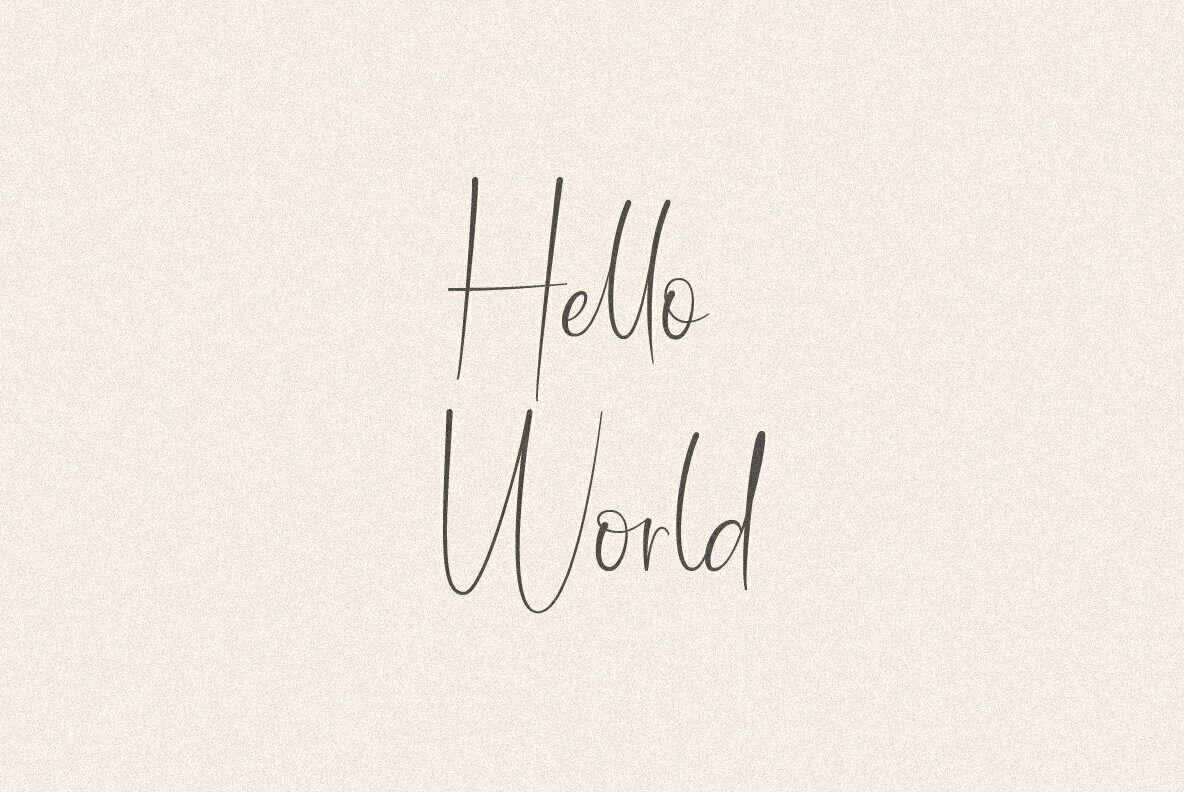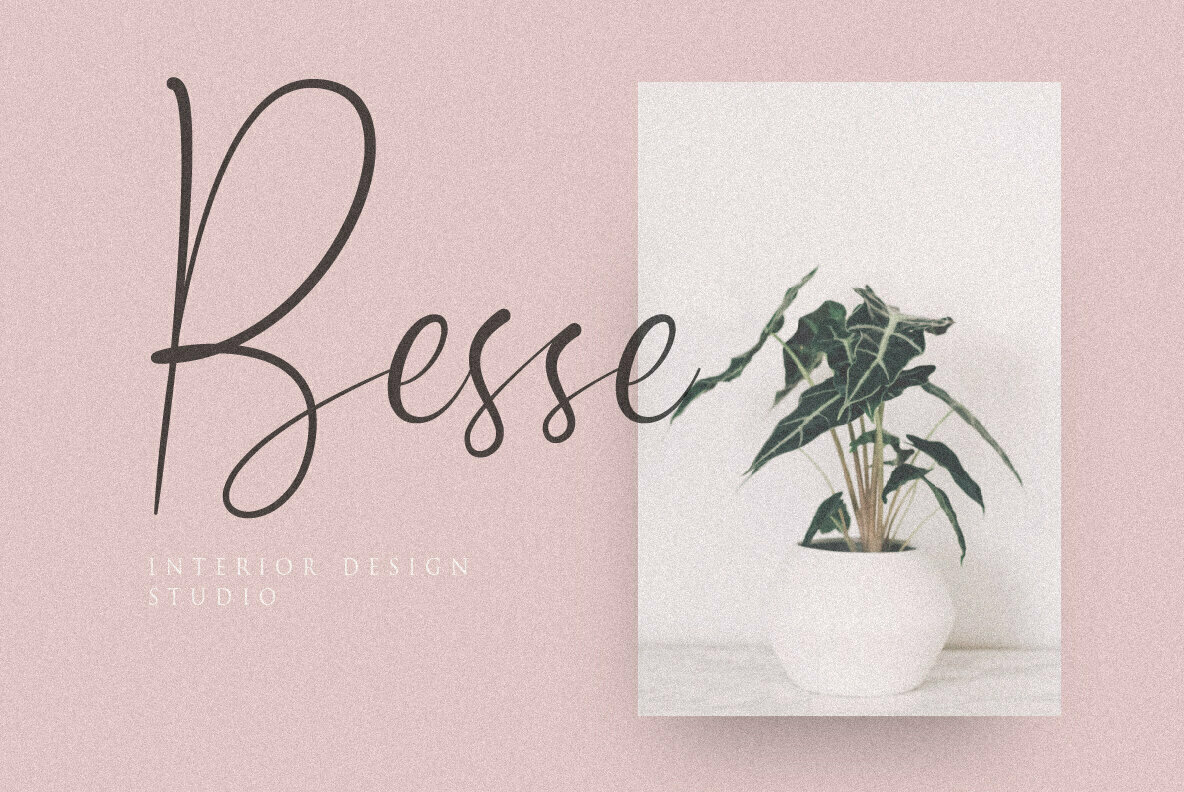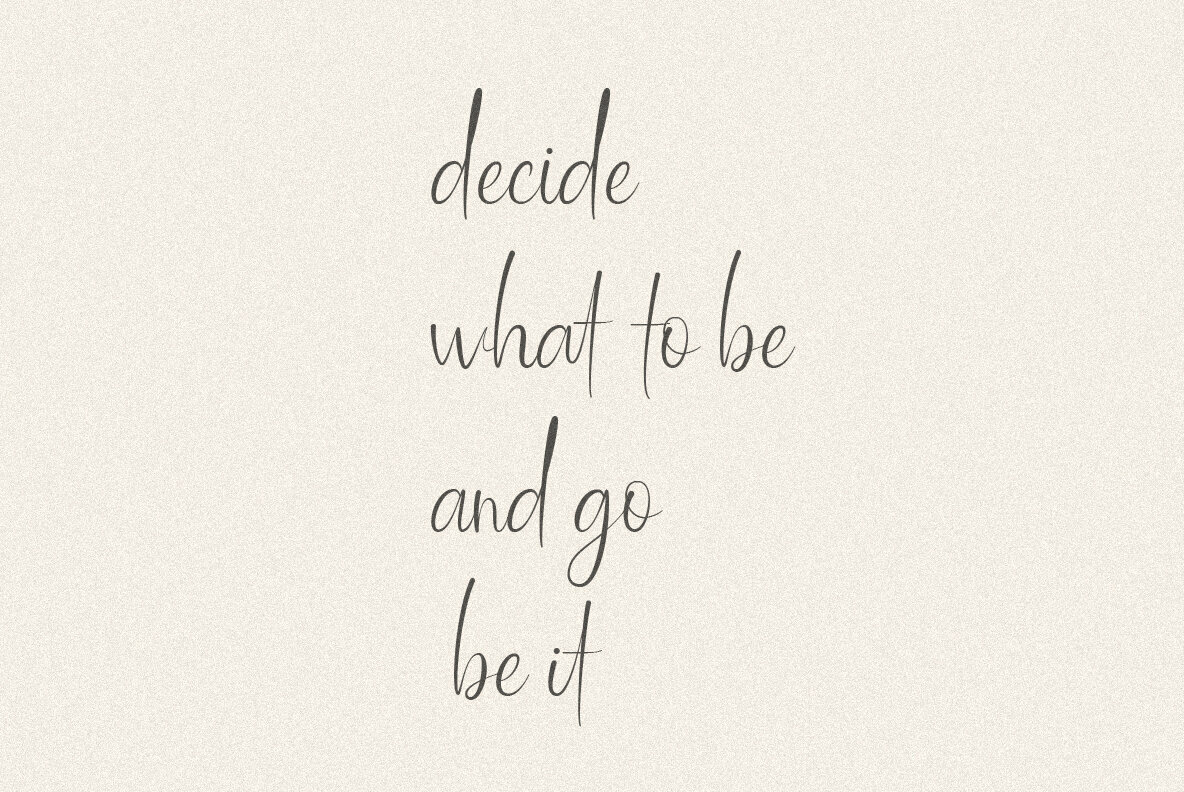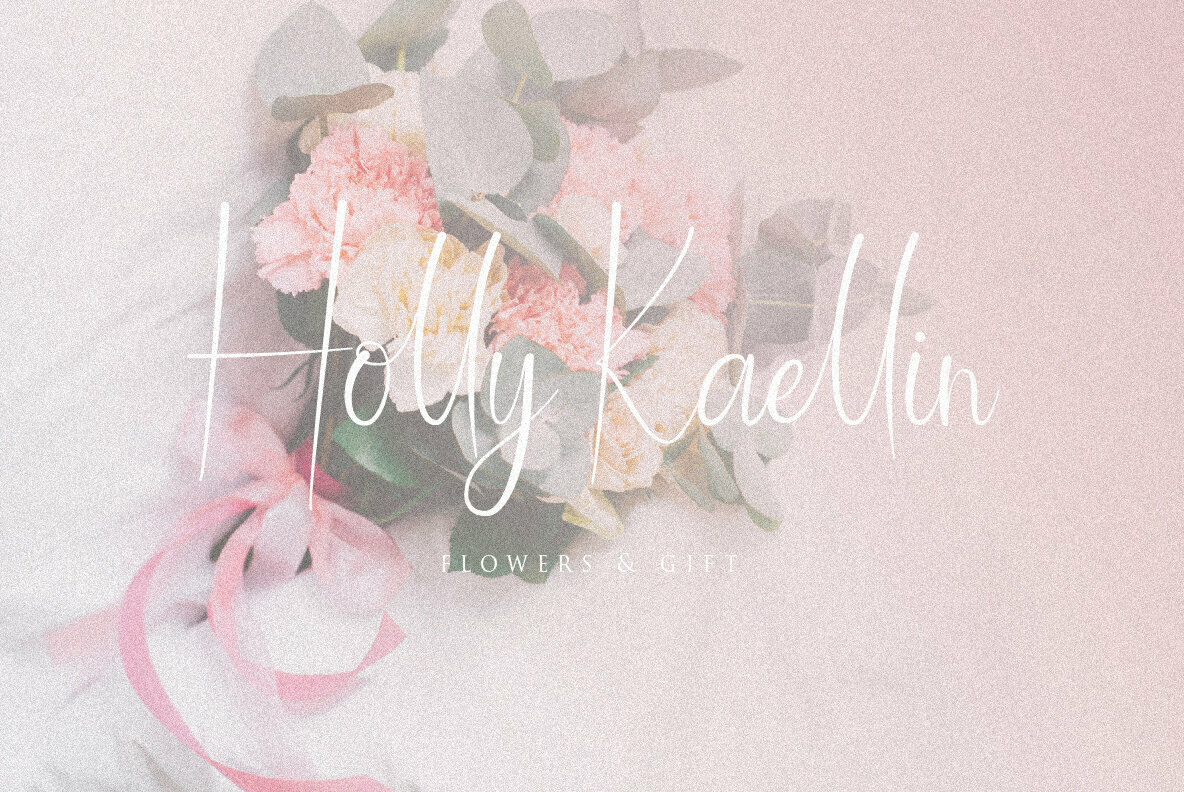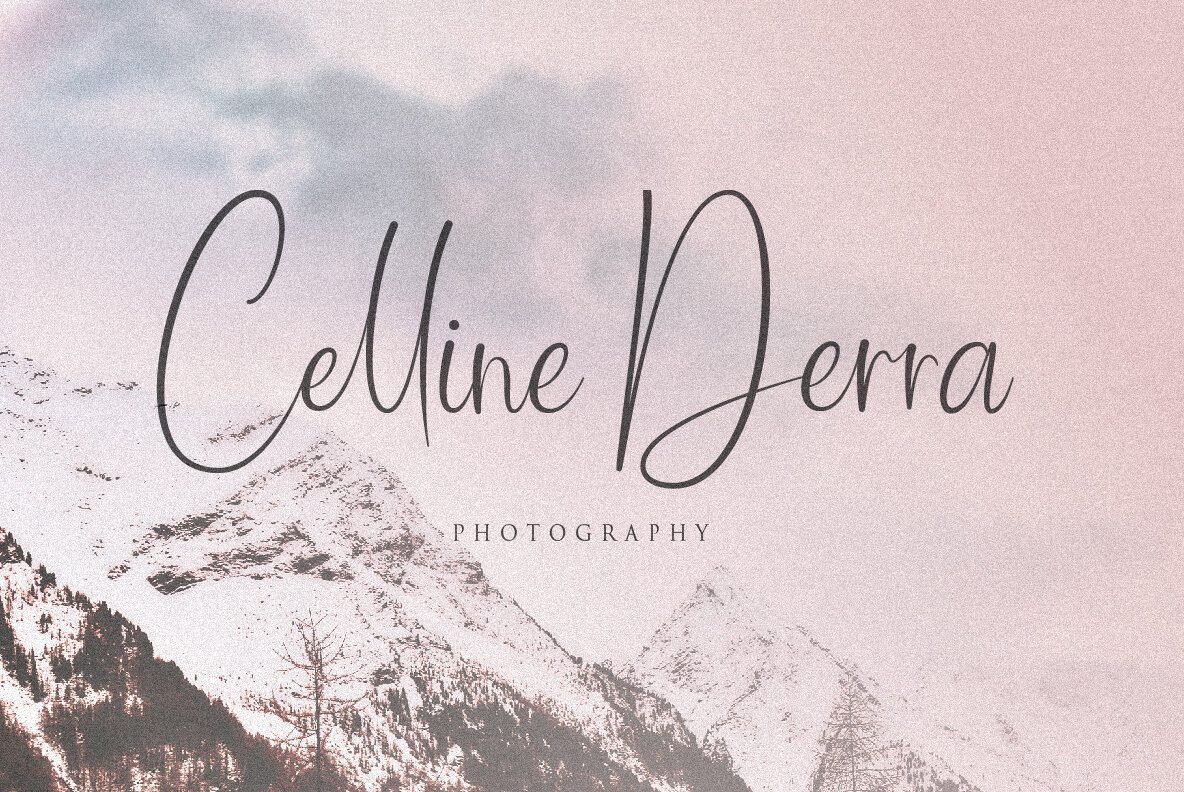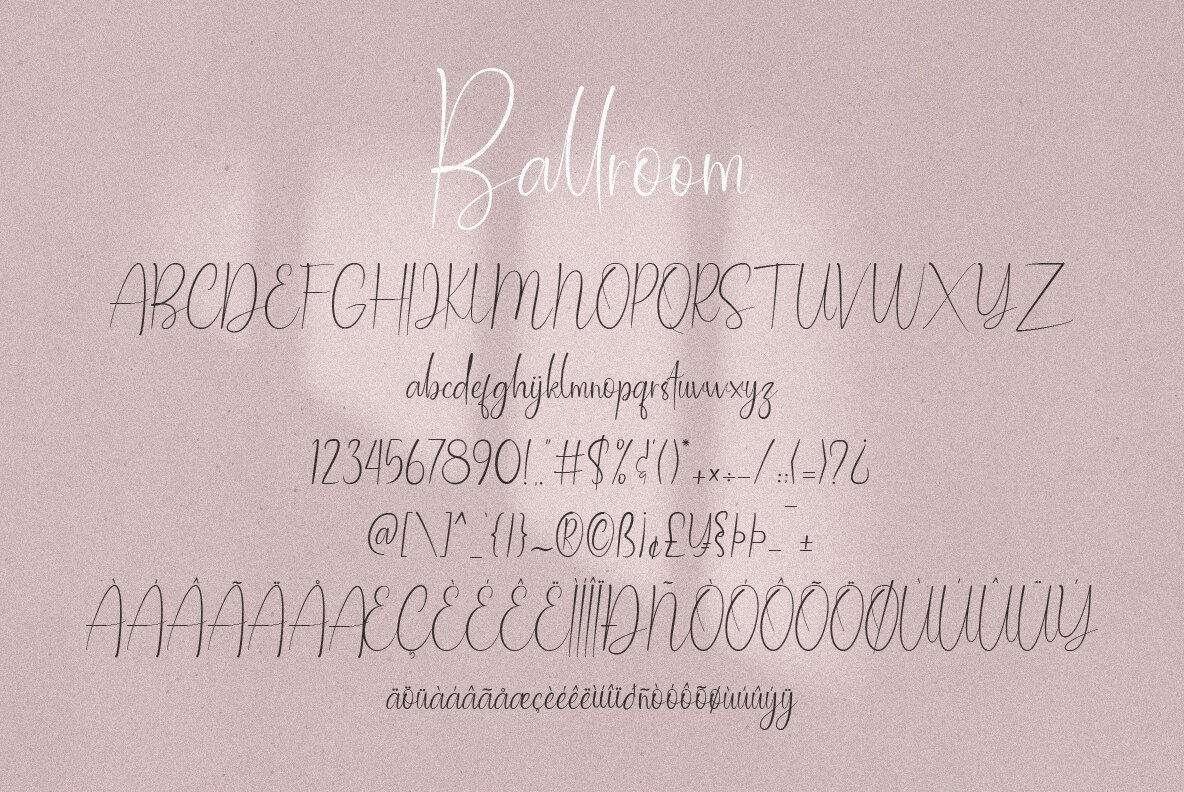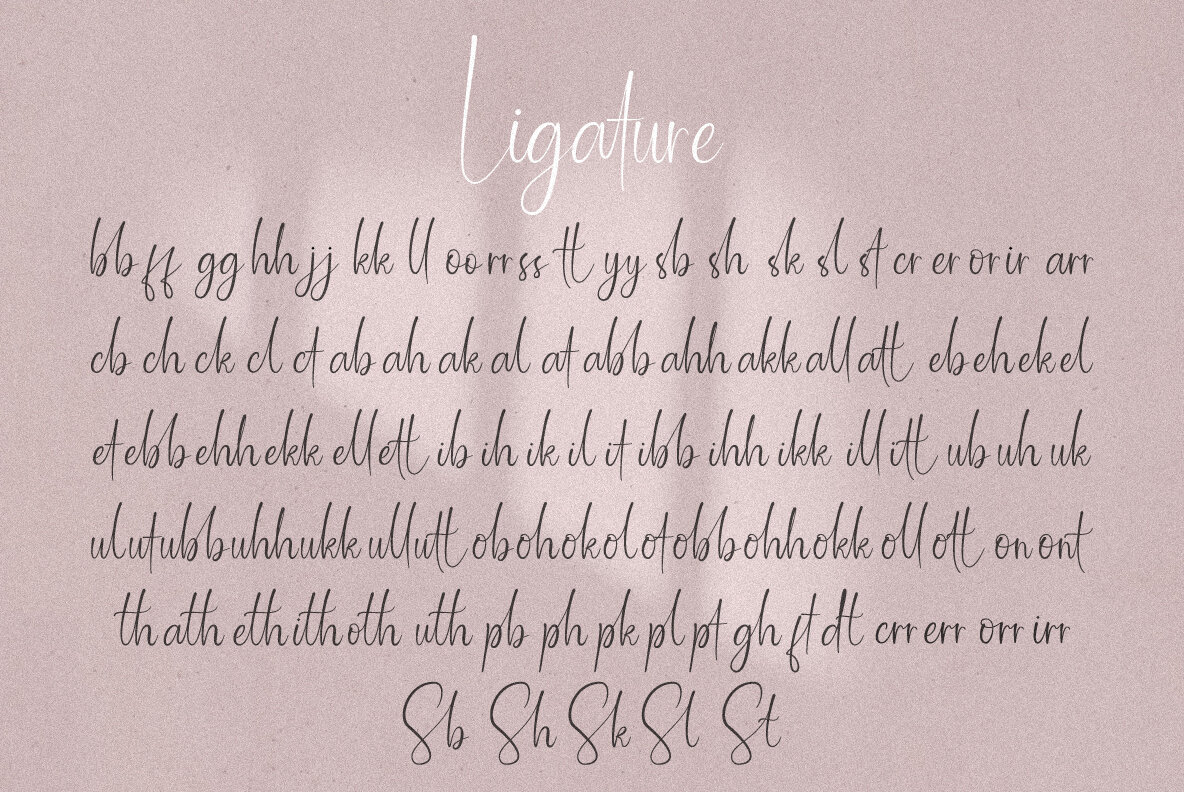
Ballroom Font
Ballroom
The Ballroom font by Sabrtype Studio offers a seamless blend of timeless handwriting charm for modern design needs. Its natural style is ideal for an array of projects, including logos, branding, invitations, and stationery. Suitable for weddings and special events, the font's versatility extends to social media contexts, product packaging, posters, and even fashion-related branding. Features: Embrace the artistic finesse of ballroom dancing and bring a personal touch to visual compositions, whether for digital media, physical products, or event materials.Ballroom: Handwriting-Inspired Elegance